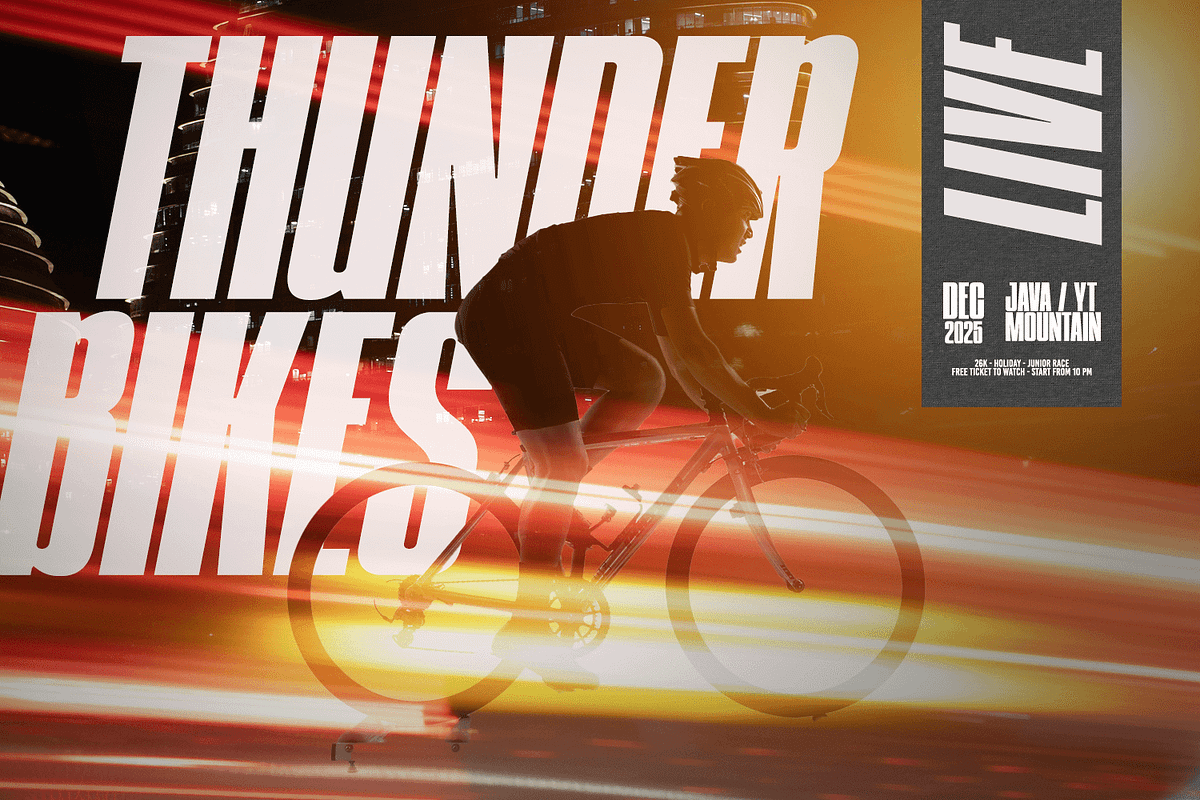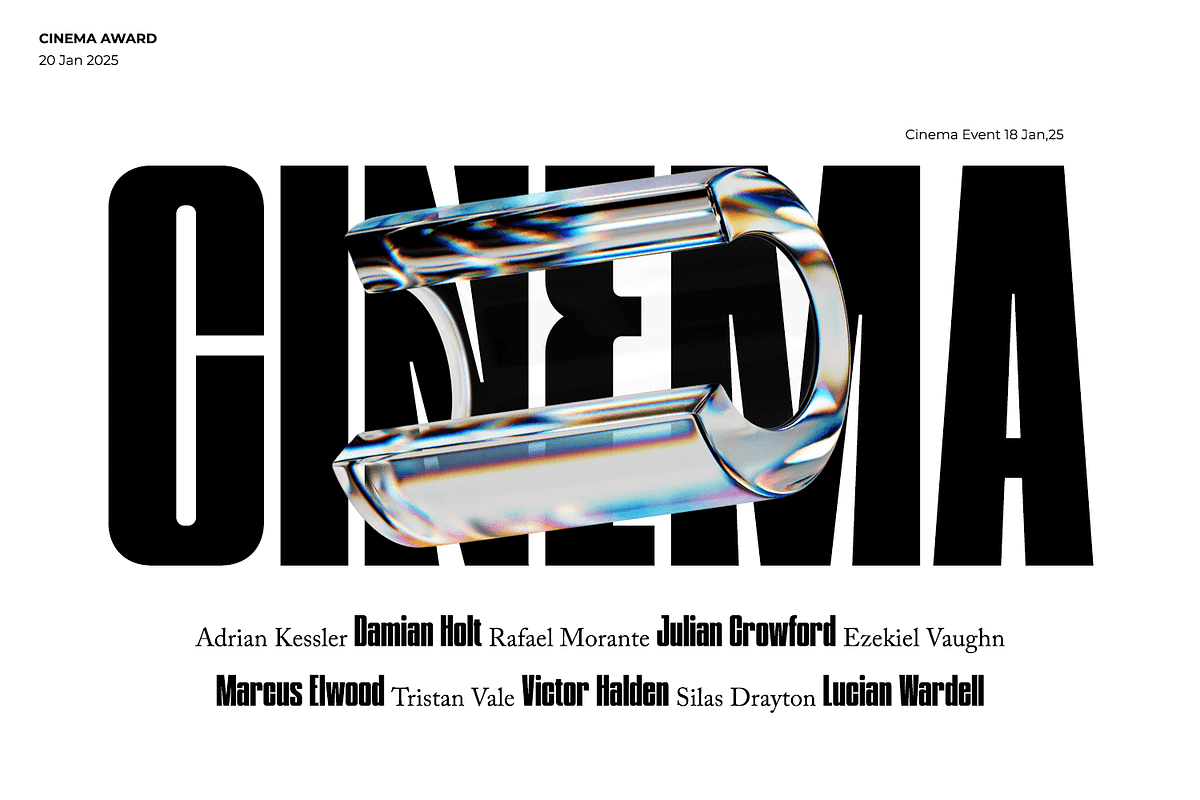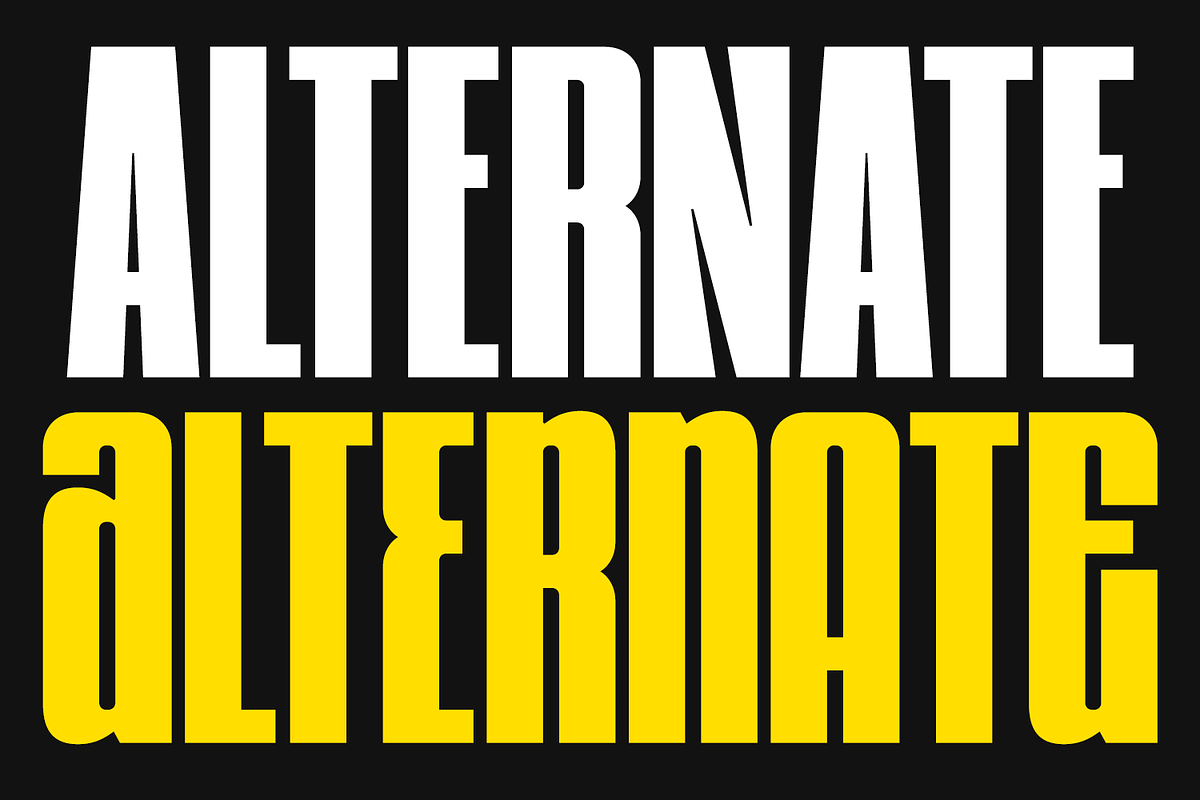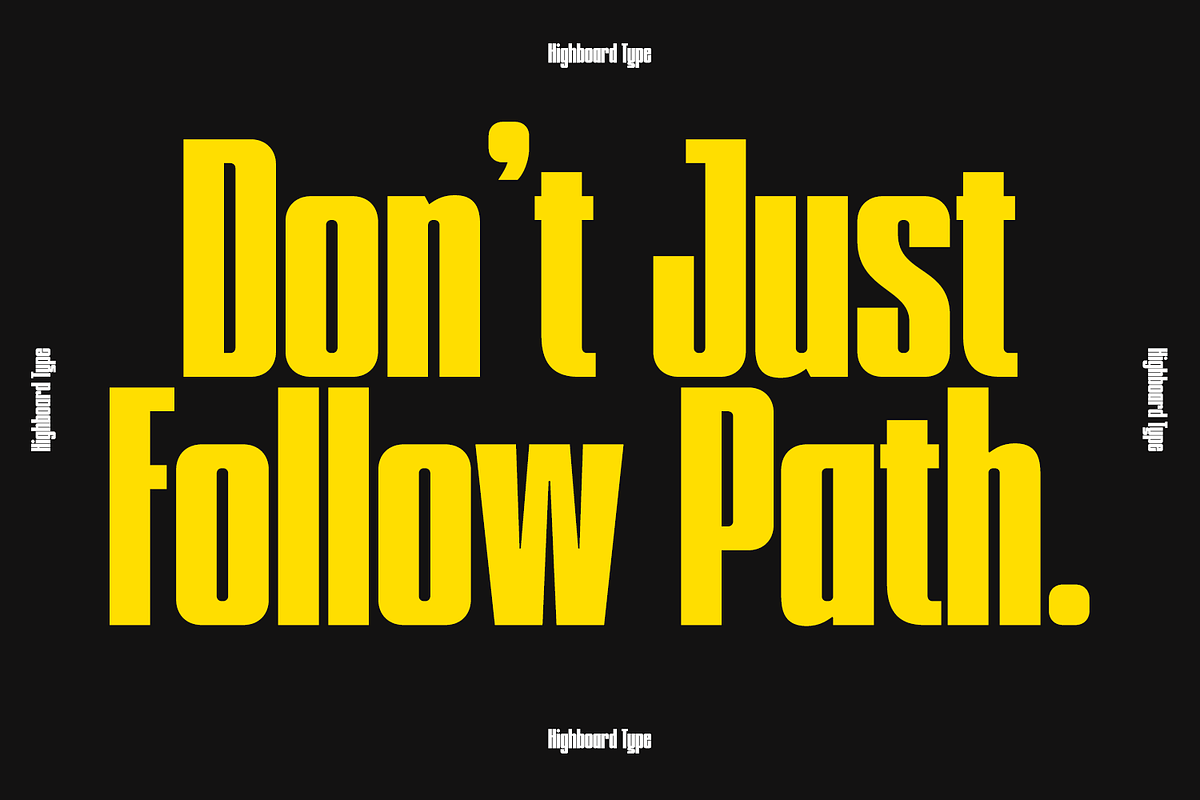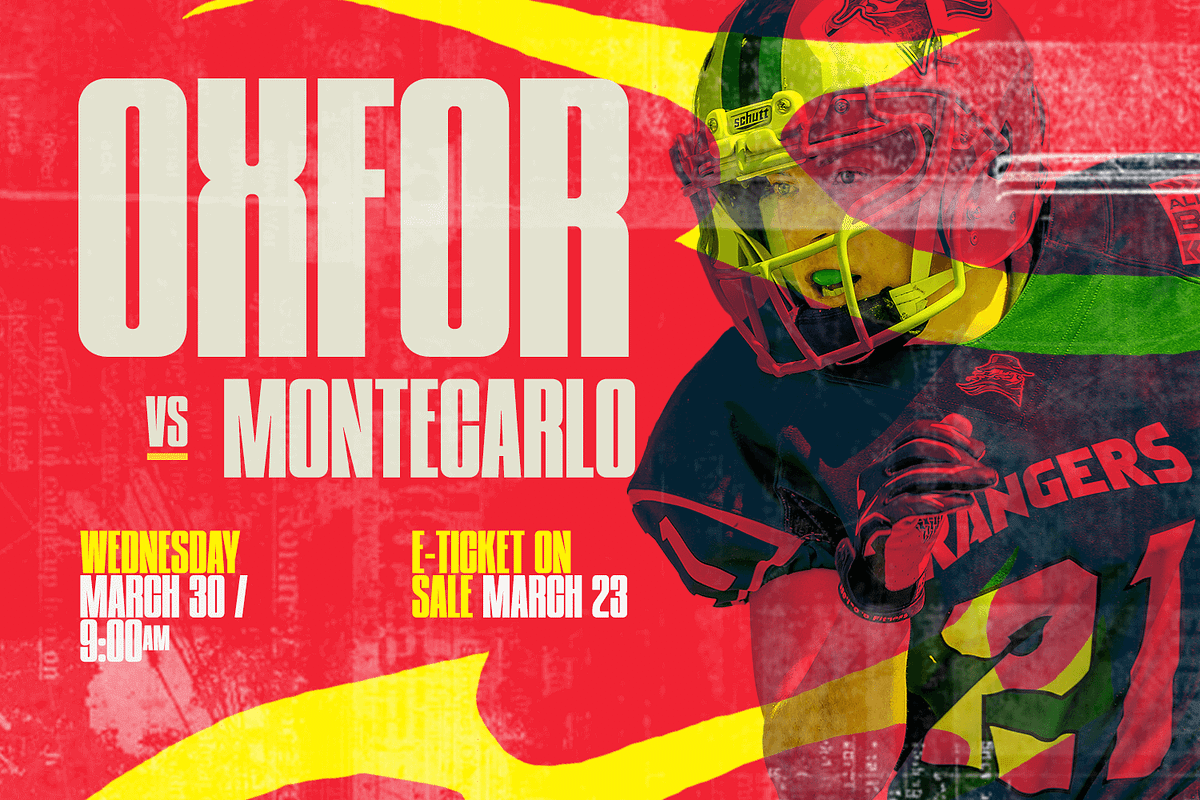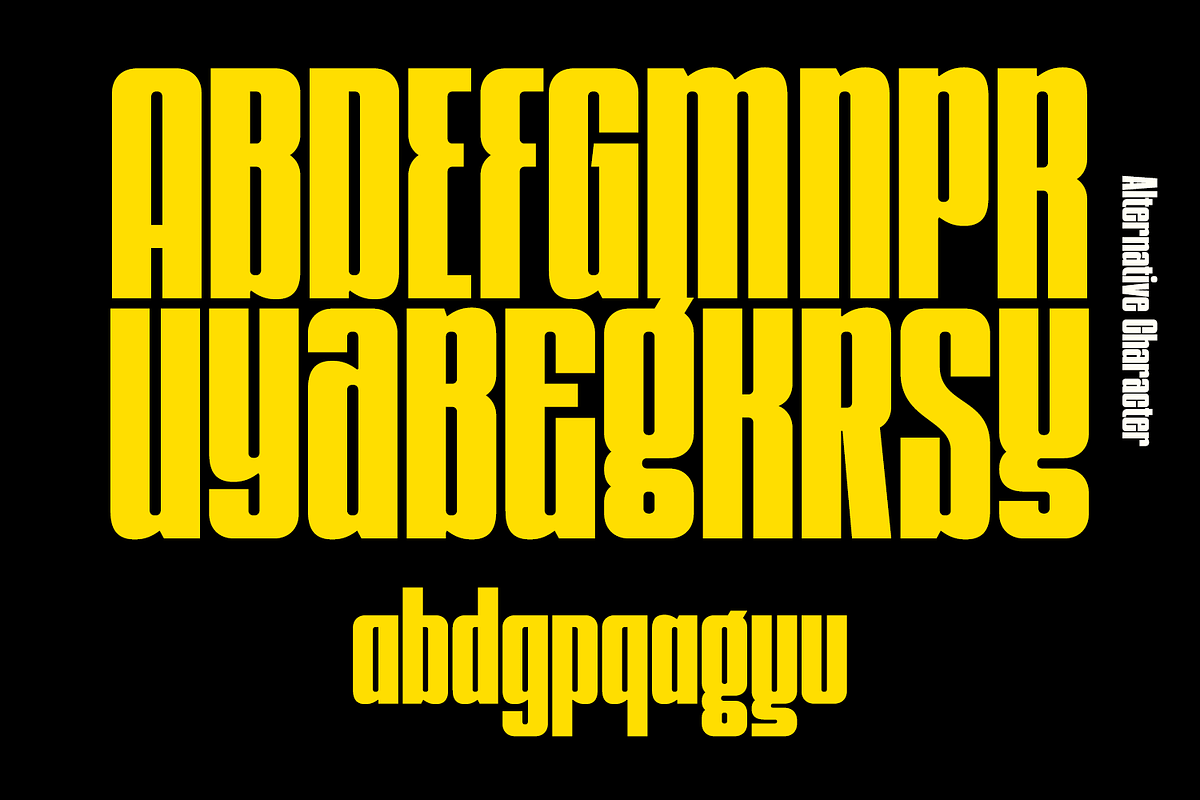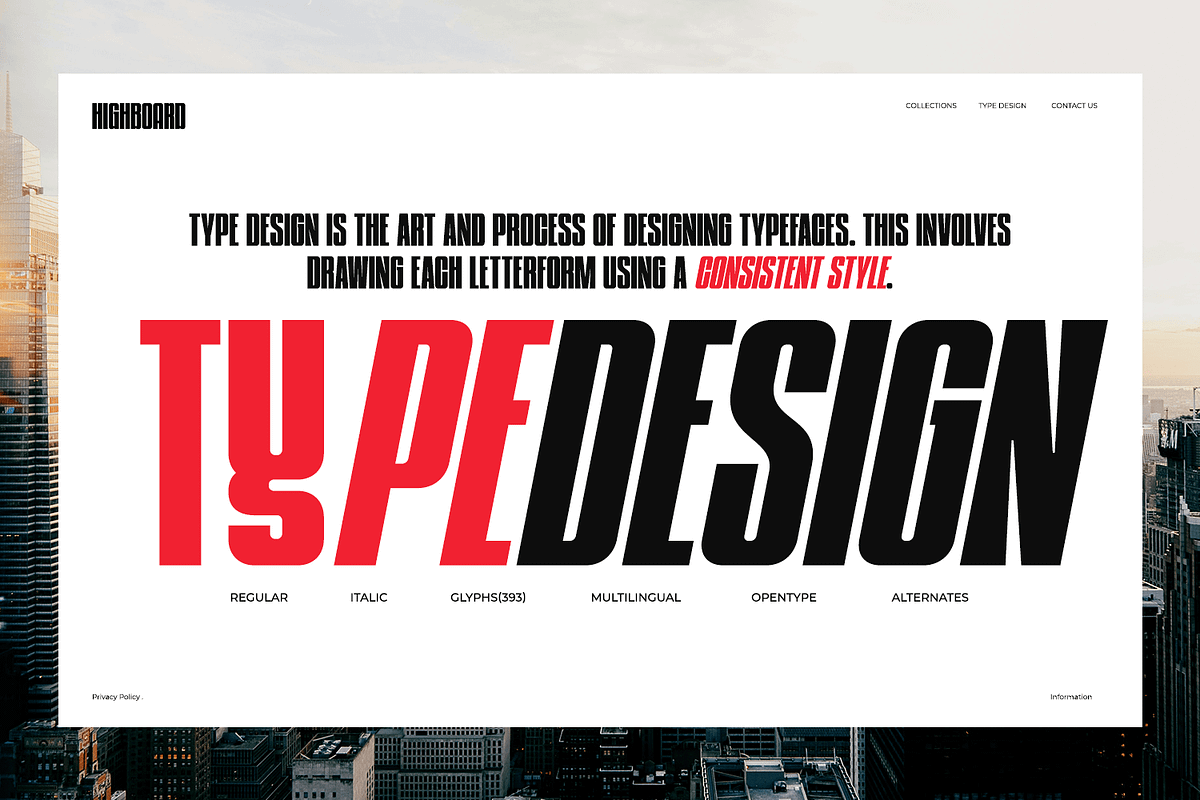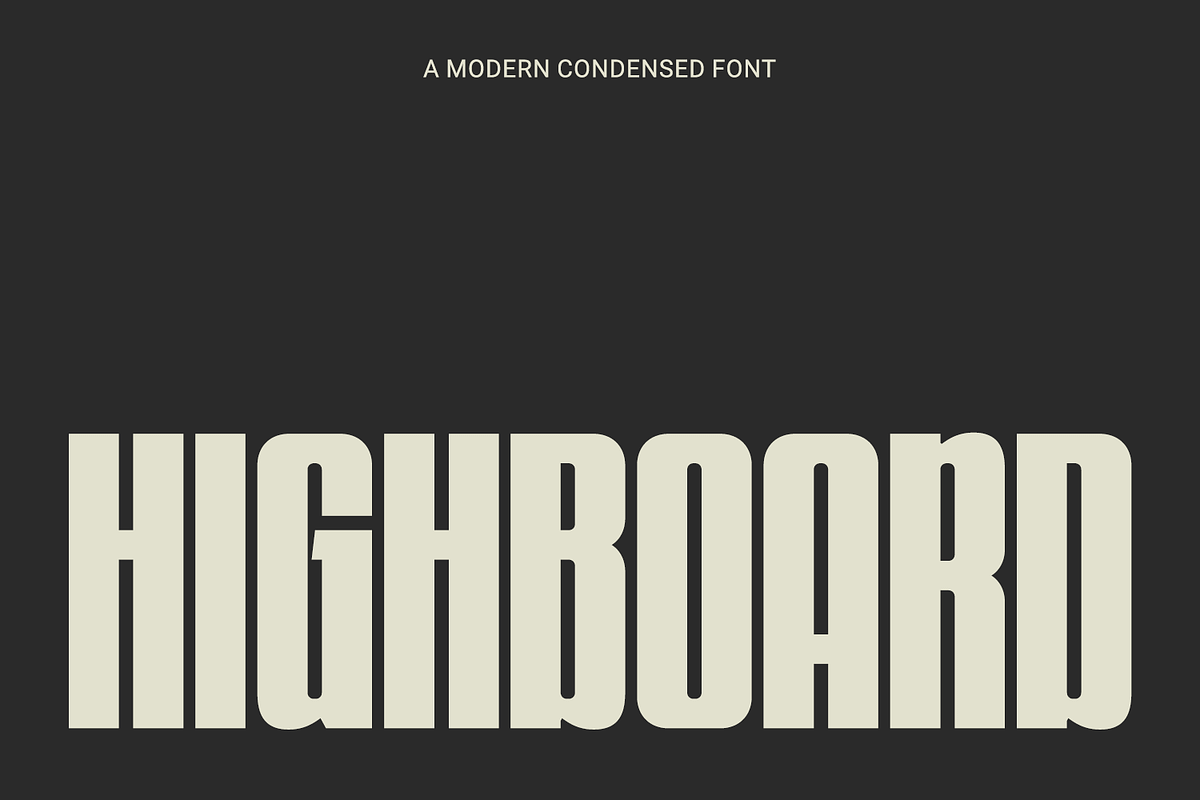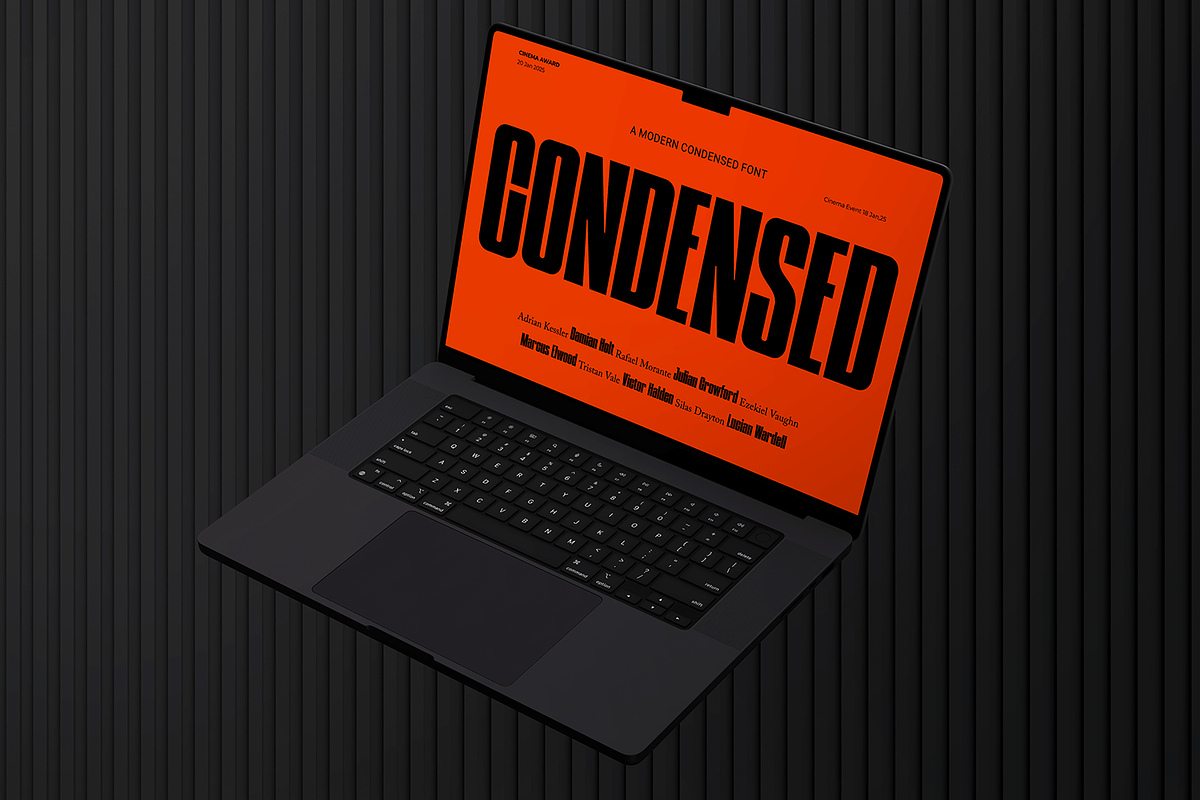
Highboard – Modern Condensed Font
Introducing Highboard – Modern Condensed Font
Highboard is a modern condensed sans-serif font designed with bold proportions and clean geometry. Its tall letterforms and minimal details give a strong, confident look that fits perfectly in contemporary design. Whether you’re working on editorial layouts, digital headlines, or high-impact posters, Highboard brings clarity and power to every composition.
This font is ideal for branding, magazine titles, logos, and packaging that demand a modern yet timeless aesthetic. With its condensed form and sleek structure, Highboard makes your typography stand out across digital and print designs. Perfect for designers who value simplicity, precision, and bold visual impact.